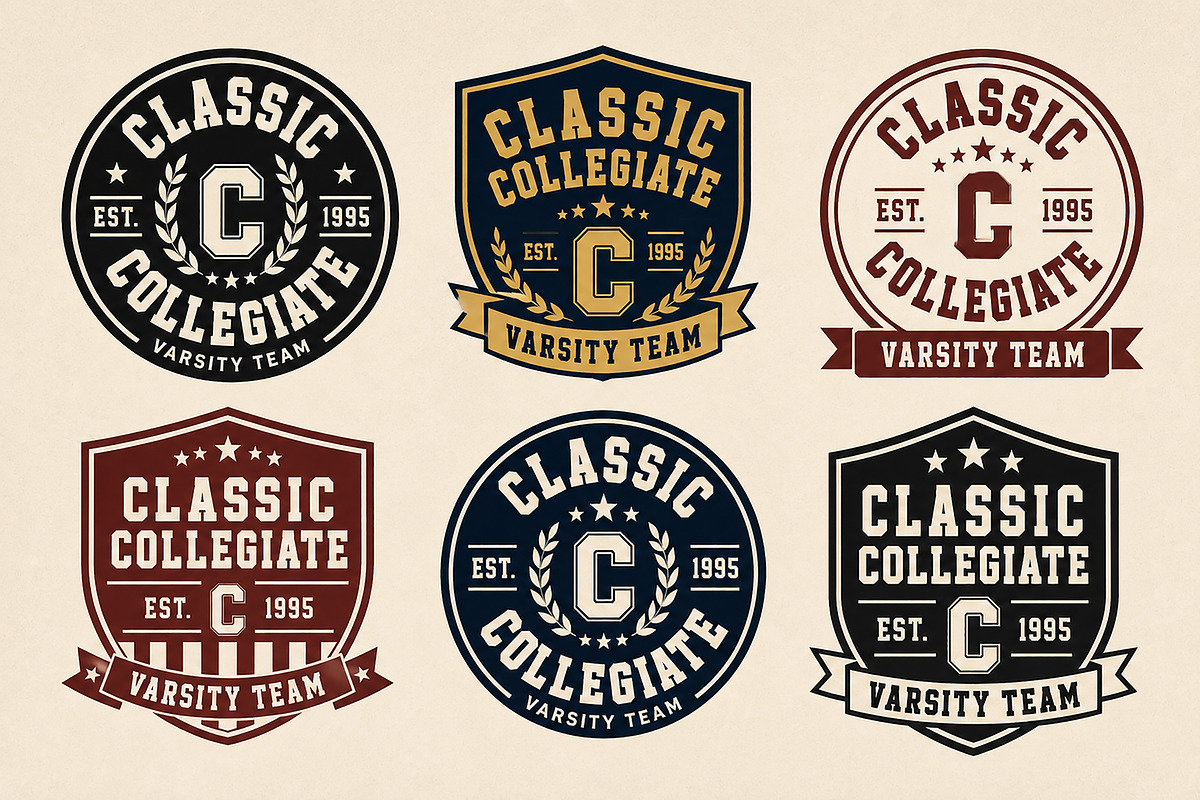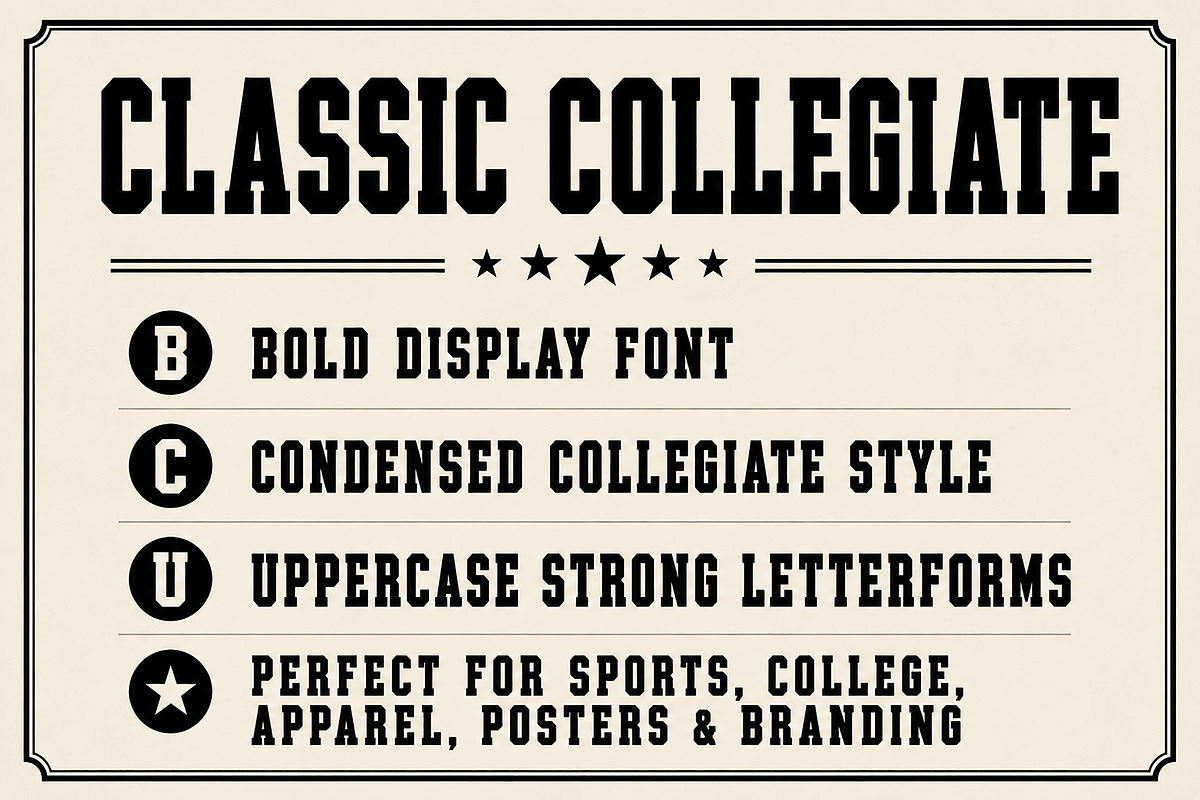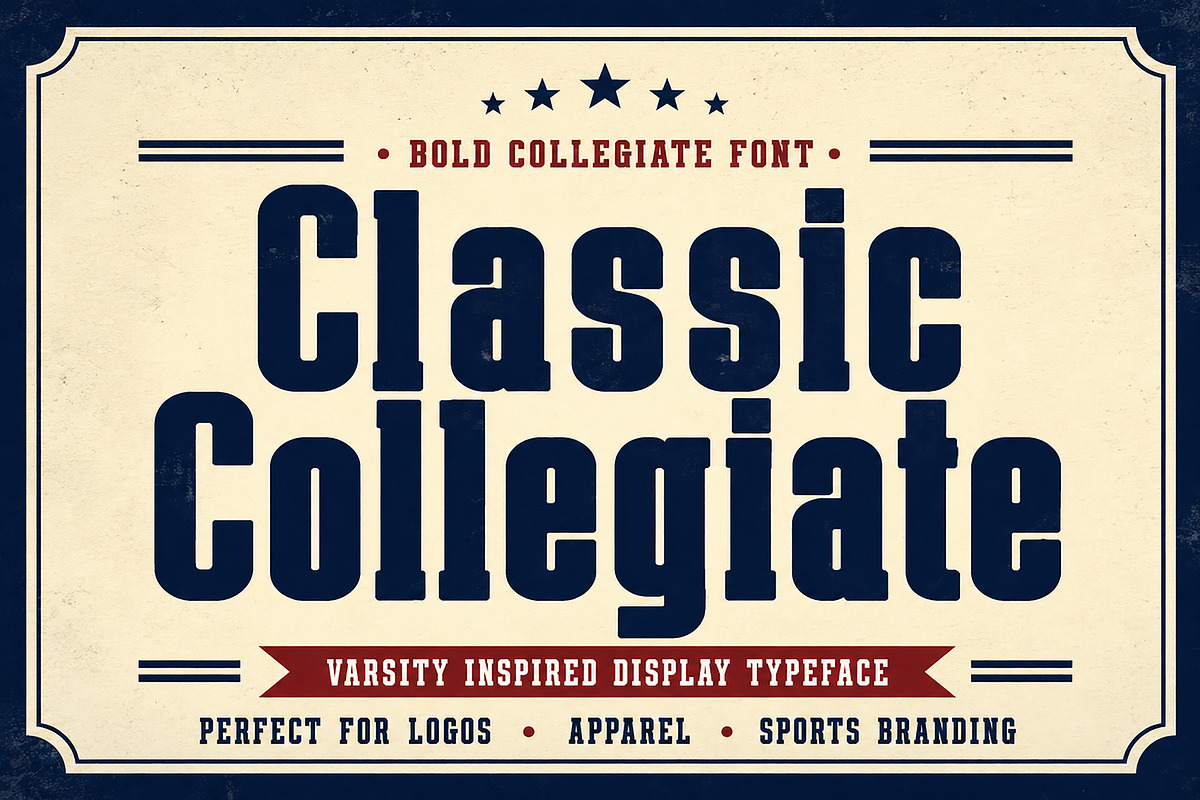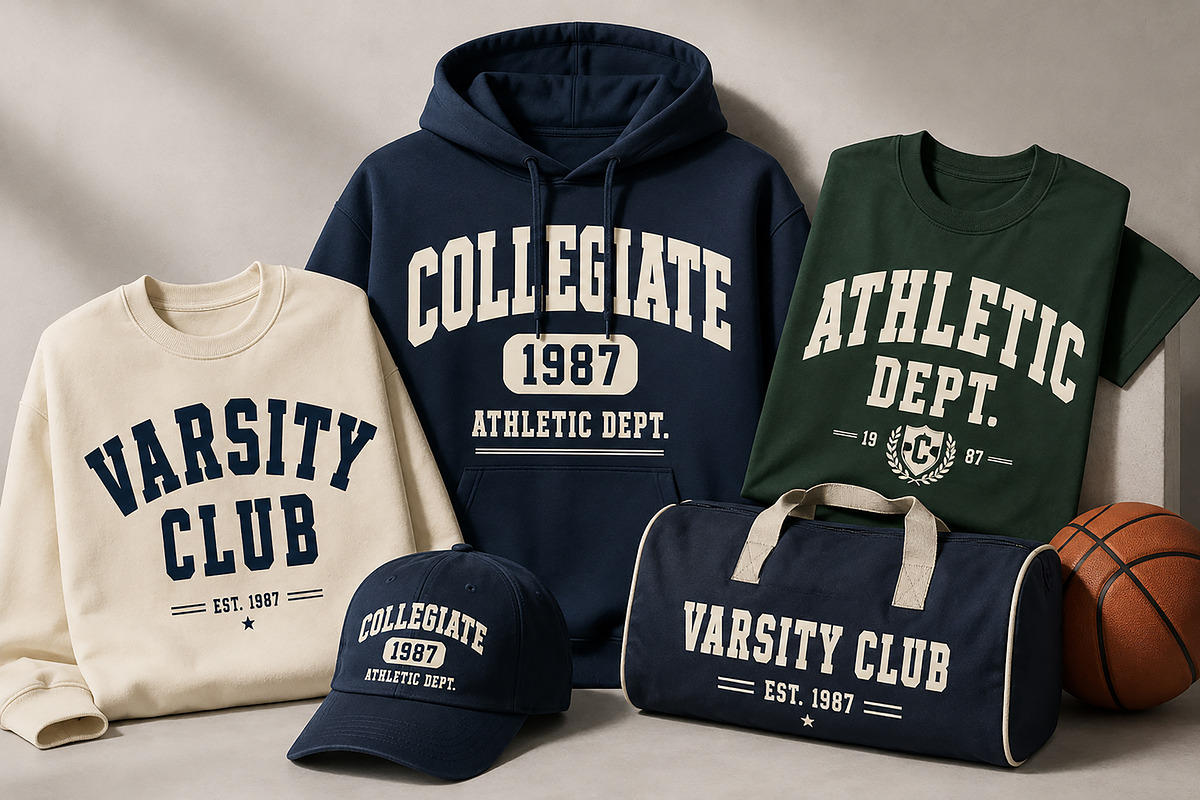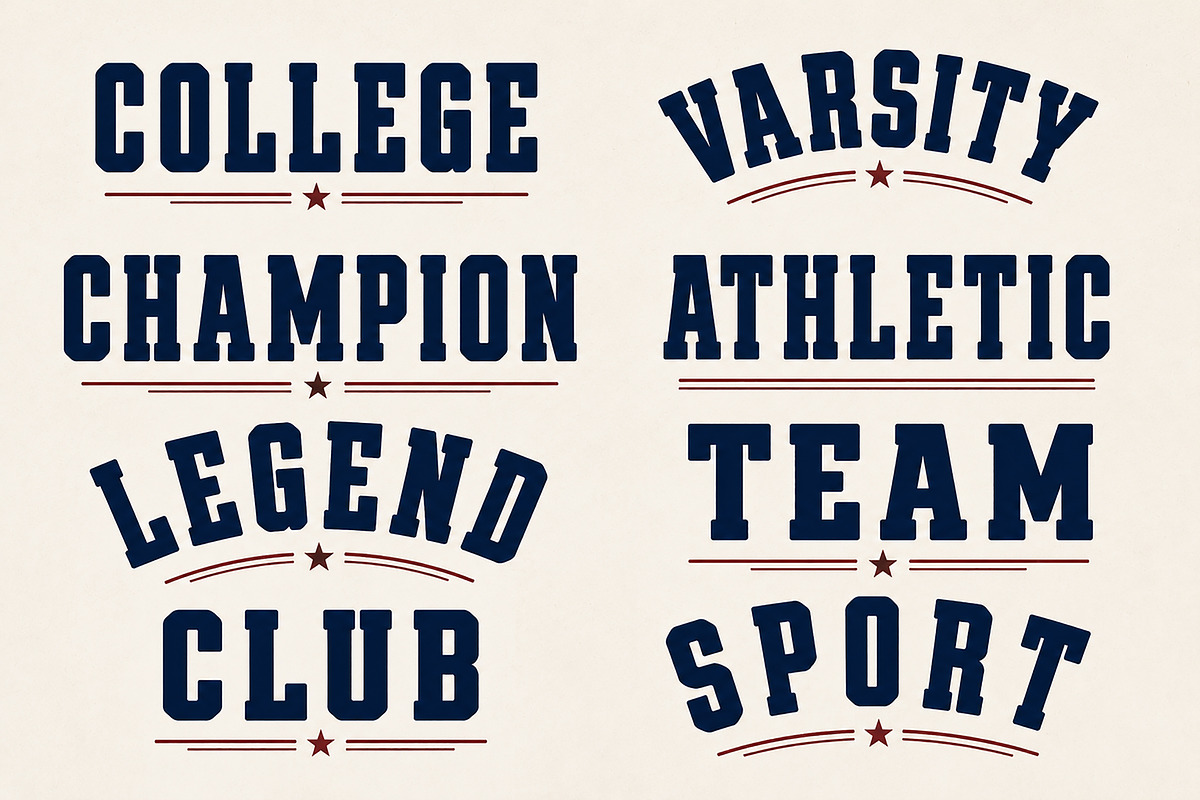
Classic Collegiate
Classic Collegiate Font
Bring timeless varsity style to your creative projects with Classic Collegiate, a bold condensed display font inspired by traditional American college lettering. Designed with strong vertical proportions and clean geometric forms, this typeface delivers an authentic athletic look that stands out on apparel, logos, sports branding, posters, and merchandise.
Whether you're creating vintage university logos, team jerseys, hoodie graphics, badge emblems, or bold branding, Classic Collegiate provides the confident, professional look that designers love.
Sports Logos
Varsity & College Branding
School Merchandise
Team Jerseys
T-Shirt Designs
Hoodies & Apparel
Athletic Posters
Vintage Badges
Emblems & Patches
Club Logos
Event Promotions
Packaging
Labels
Stickers
Print-on-Demand Products
Bold Condensed Display Typeface
Classic Collegiate Style
Strong Uppercase Letterforms
Clean & Professional Design
Easy to Read at Large Sizes
Perfect for Headlines and Logos
Vintage Athletic Aesthetic
Ideal For
Classic Collegiate is perfect for designers, sports brands, apparel businesses, schools, universities, print-on-demand sellers, logo creators, and anyone looking for an authentic varsity-inspired display font.